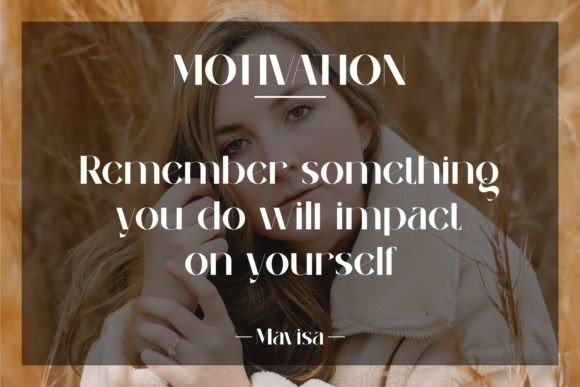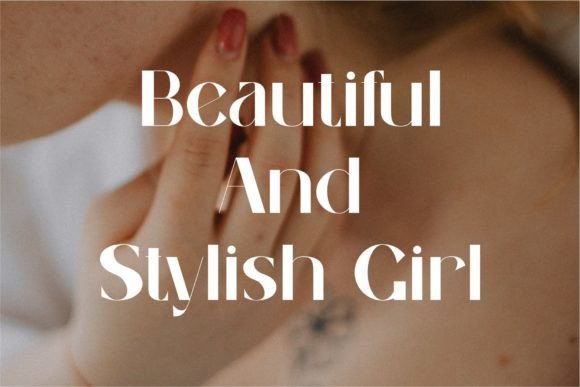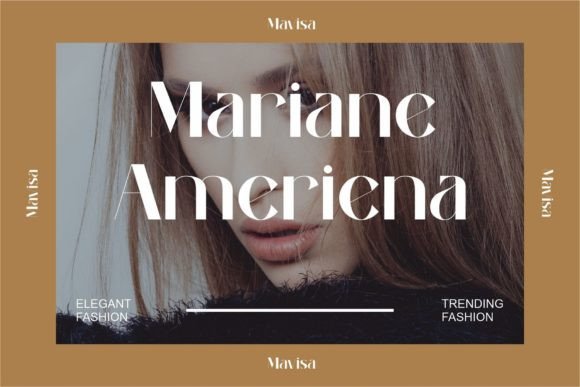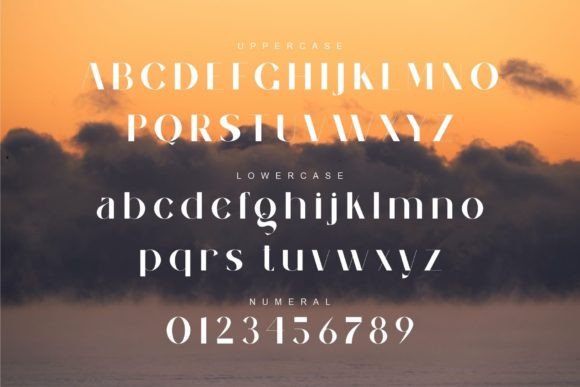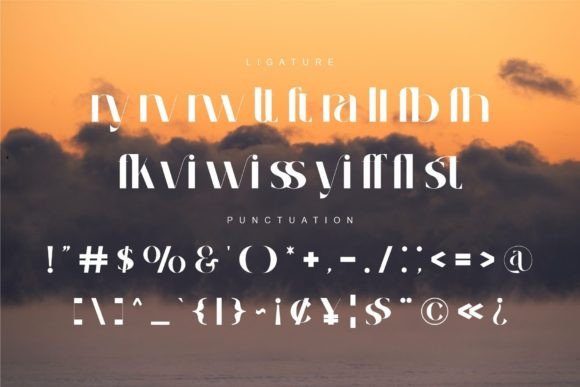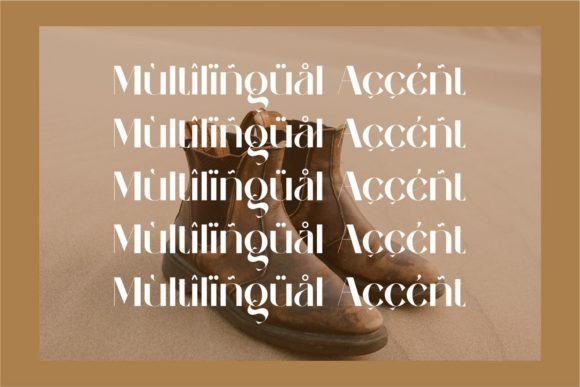
Introduction to Mavisa Font
Imagine you’re brainstorming ideas for a wedding invitation, and you stumble upon the perfect font – one that exudes elegance and sophistication. The Mavisa Font is that perfect find, and in this article, we’ll delve into what makes it a valuable design resource for creatives.
As a designer, you’re always on the lookout for high-quality fonts that can elevate your projects. The Mavisa Font is a free download that offers a transparent background, making it easy to use in various creative projects. Its soft and curved lines create a delicate appearance that’s perfect for branding, editorial layouts, and, of course, wedding invitations.
Key Features of Mavisa Font
- High-quality design resource for creative projects: Mavisa Font is a premium-quality font that can be used in various design projects, from graphic design to digital art.
- Unique characteristics: Mavisa Font features a unique, modern design with clean lines and a minimalist aesthetic, making it perfect for creative projects that require a touch of elegance and sophistication.
Honest Review: Mavisa Font
I recently stumbled upon the Mavisa Font, and I must say, it’s a great addition to any designer’s design resource library. The font is available for free download, which is a major plus for those of us who are always on the lookout for high-quality, yet budget-friendly design tools.
What works well with the Mavisa Font is its versatility. It comes with a transparent background, making it easy to use in creative projects that require a clean and minimal aesthetic. The font also has a modern feel to it, which makes it perfect for designs that need to convey a sense of sophistication and elegance.
- ✨ Easy to use and customize
- ✨ Suitable for a wide range of design projects
- ✨ High-quality and crisp typography
However, I do have to mention a few limitations. The font family is relatively small, which means you may need to use other fonts to complement it. Additionally, the font may not be suitable for designs that require a bold or playful tone.
Overall, I’m quite impressed with the Mavisa Font. It’s a solid design resource that can add value to any creative project. While it may have a few limitations, its versatility and high-quality design make it a great choice for designers who are looking for a reliable and affordable font.
Mavisa Font is ideal for creative projects that require a unique and stylish design. It’s perfect for logos, business cards, posters, and social media graphics. The transparent background feature makes it easy to use in a variety of design contexts.
Tips for Getting the Most Out of Mavisa Font
To get the most out of Mavisa Font, use it in combination with other design elements to create a visually appealing design. Experiment with different font sizes, colors, and styles to achieve a high-quality design. You can also use Mavisa Font for free download, making it an excellent design resource for your creative project.
Yes, the Mavisa Font has a transparent background, making it ideal for use on images and backgrounds with complex designs. This feature allows you to easily overlay the font on top of other design elements, giving you more creative control over your projects.
Q: What is the recommended usage for the Mavisa Font?
The Mavisa Font is designed for use in a variety of creative projects, including logos, branding materials, and marketing collateral. It’s a high-quality design resource that’s perfect for designers looking to add a unique touch to their work.